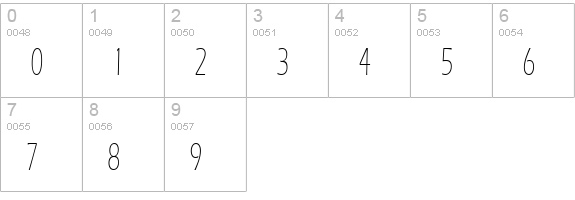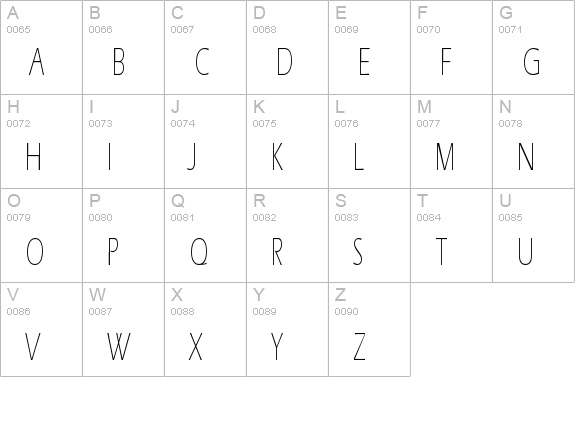
Eric Lite Normal is the standard, neutral variant in the Eric typeface family \xE2\x80\x94 well suited to general body text, paragraphs, and standard typographic work.
Eric Lite Normal font is a versatile and modern typeface that exudes elegance and simplicity. With clean lines and a balanced design, this font is perfect for a wide range of projects, from branding to editorial design. Its sleek and contemporary appearance makes it an ideal choice for both digital and print applications. What makes Eric Lite Normal font even more appealing is that it is available for free download at FontsMarket.com. This means that you can easily access this high-quality font without any cost, making it a valuable addition to your font collection. Whether you are a designer looking for a stylish typeface or a business owner in need of a professional font for your marketing materials, Eric Lite Normal font is sure to meet your needs. Download it today and elevate your designs with this exceptional font.